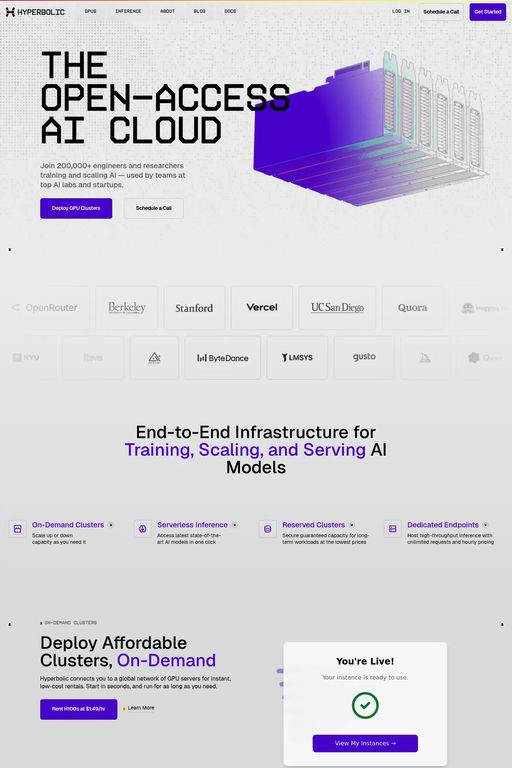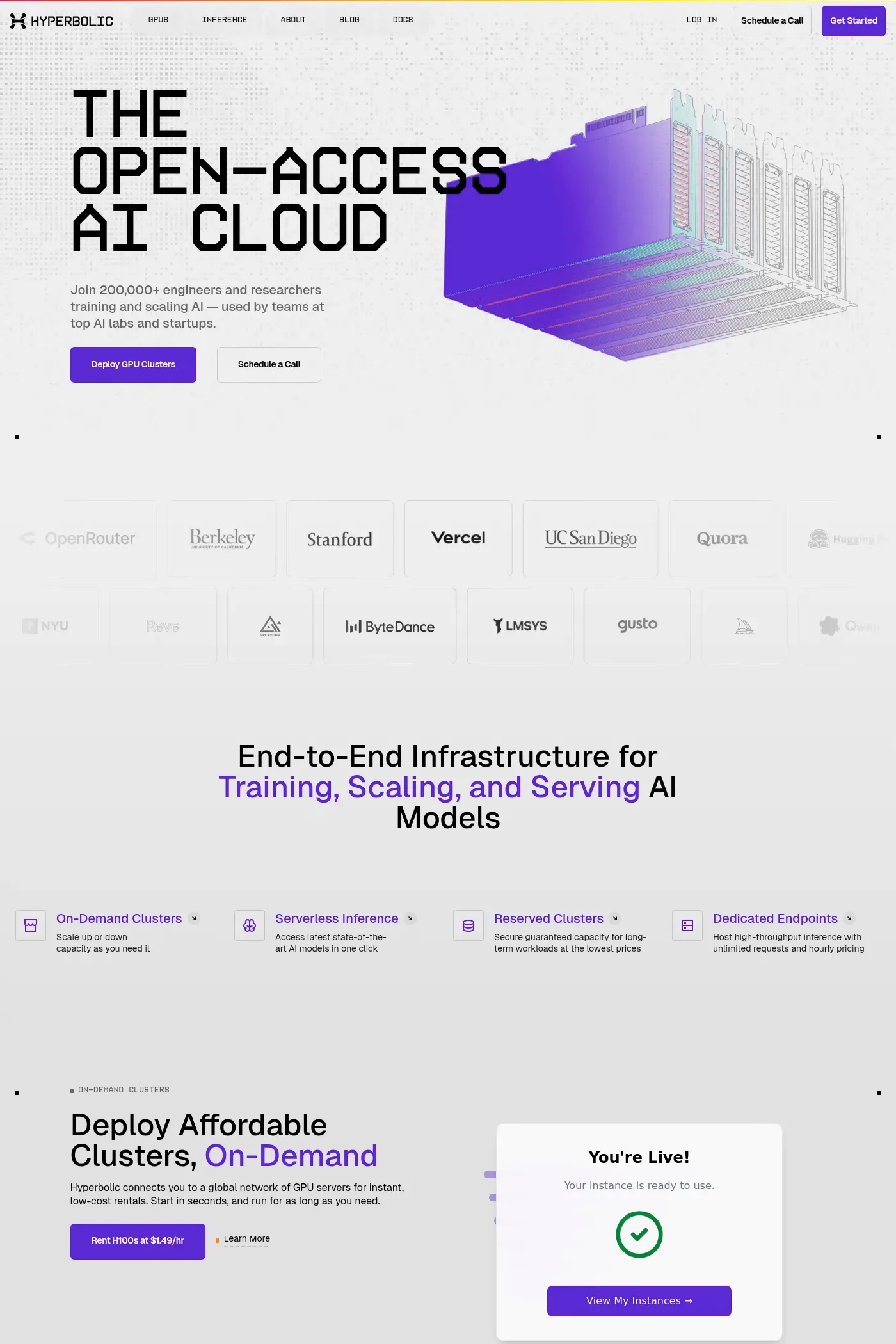
KH Interference is a display typeface from KH Type.
KH Interference is an uppercase only monospaced typeface inspired by primitive letter shapes. Both from the analog world, like printing on receipts and ticket stubs, as well as from the digital world, like pixelated type found on low-res screens.
A1 features 1 website using KH Interference. It leans towards Sans-serif, Clean, and Techy design styles, and it’s most often built with Next.js.